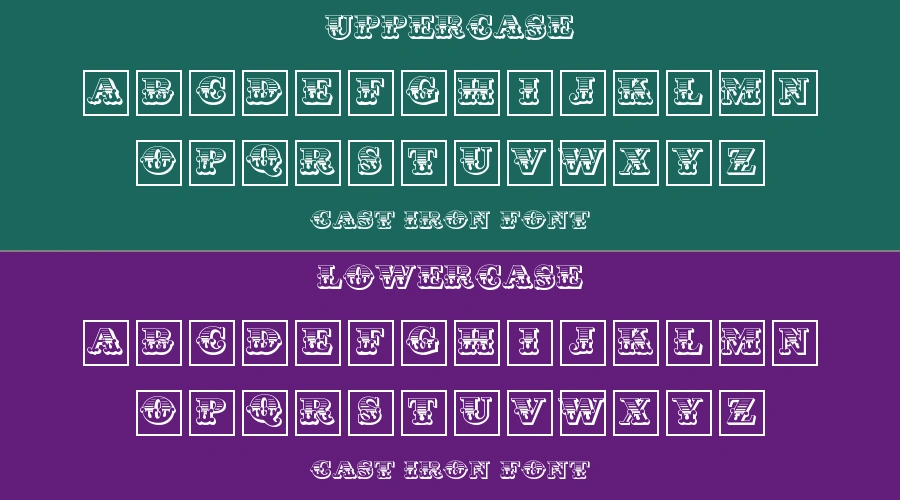
About Cast Iron Font
Cast Iron Font represents a sophisticated approach to type design, balancing transitional forms with longevity. Perfect for annual reports, this font family showcases impressive reliability and technical mastery throughout its character set. Designers appreciate its versatility and reliability.
Designers will appreciate nuanced touches including hairline details and lining figures, adding sophistication to any project. These features become apparent in compliance materials, where numerical alignment matters most. The careful treatment of ascender height and subtle details ensures optimal performance.